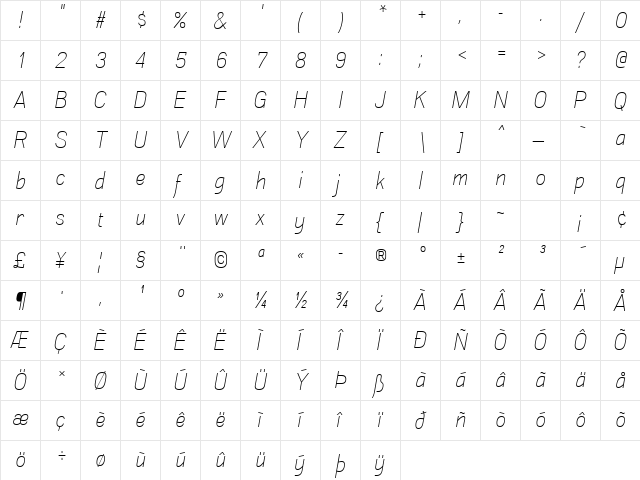
Akazan Light Italic Font Preview
Akazan Light Italic
Akazan Light Italic Font Details
| Style | Light Italic |
Design Context for Akazan Typeface
Akazan takes a measured approach to typography — its balanced proportions and neutral character make it a reliable workhorse for both digital and print work. The dynamic lean of this cut emphasises speed and emphasis in any layout. Its slender proportions lend an understated elegance to any composition.
Pro Tip: Use Akazan for emphasis, pull quotes, and subheadings where its slanted energy can add rhythm to the layout.